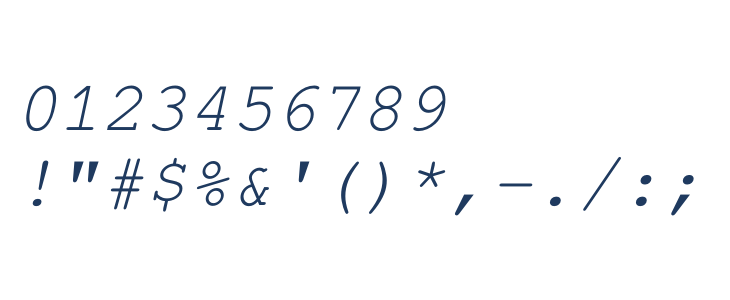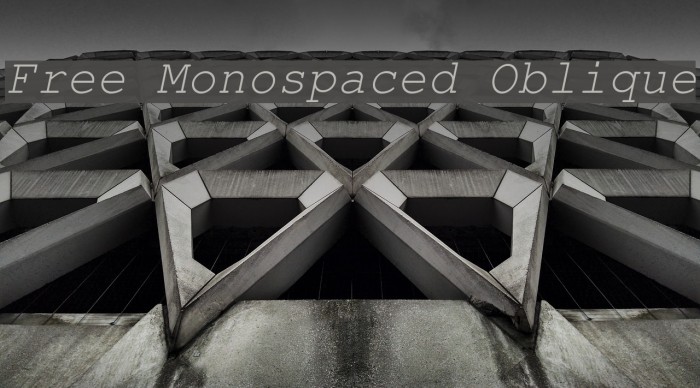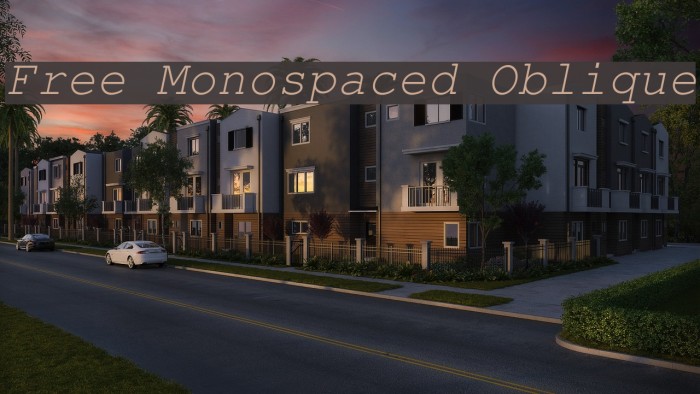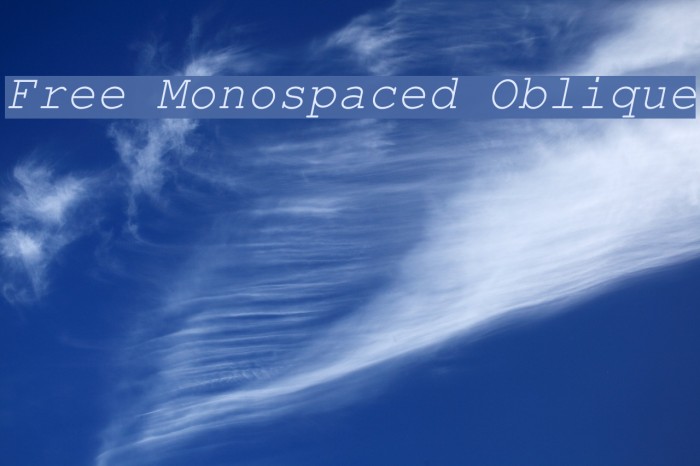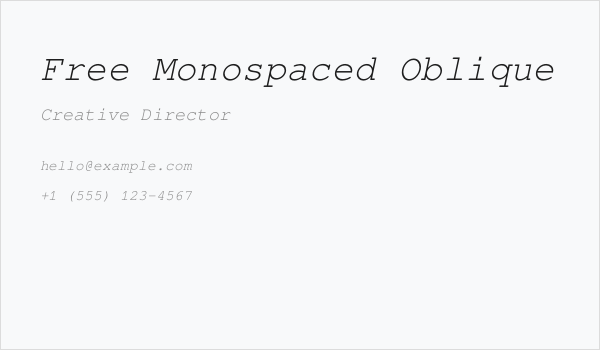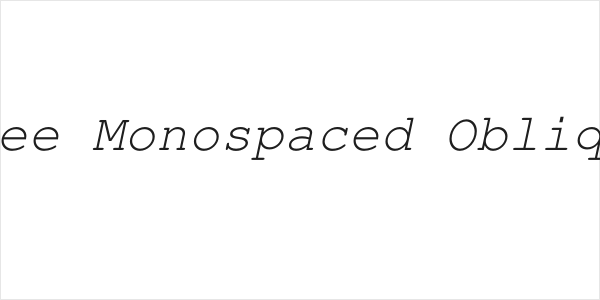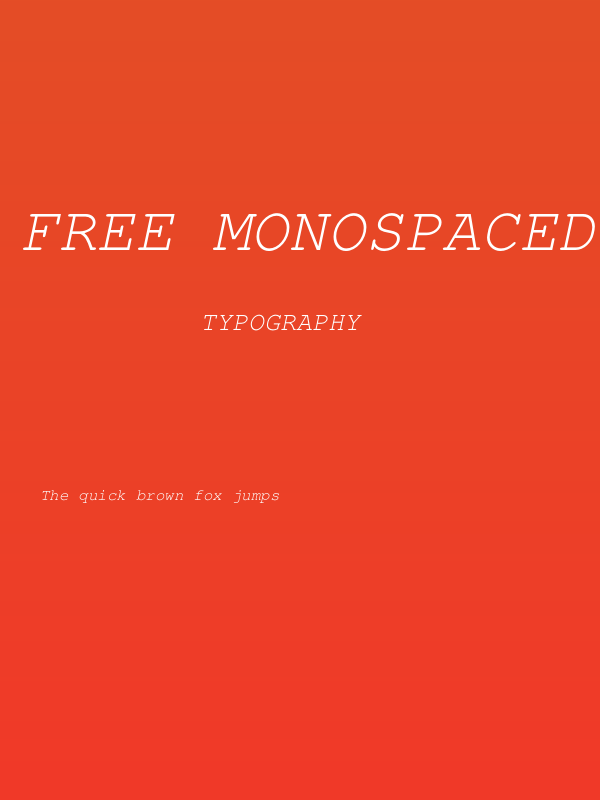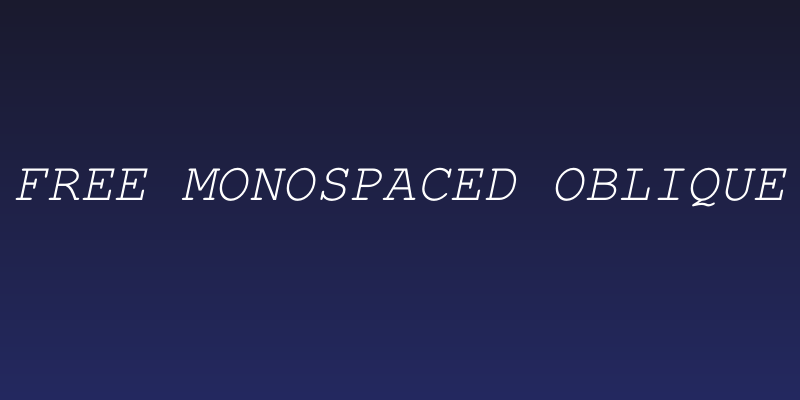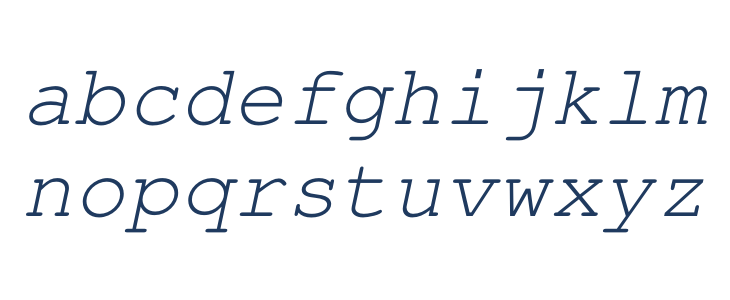
Free Monospaced Oblique Font
Free Monospaced Oblique Description
This font features a monospaced design with an oblique style, giving it a distinct slant that adds a dynamic and modern touch. Each character maintains equal width, ensuring consistent alignment and readability, which is ideal for coding and tabular data. The strokes are clean and uniform, providing a sleek and professional appearance. The oblique angle adds a sense of motion and elegance, making it suitable for both technical and creative applications. The font includes a full set of uppercase and lowercase letters, numbers, and a variety of special characters, offering versatility for different design needs.
| Use Case | Coding, Technical documents, Creative design |
| Proposed Projects | Ideal for coding environments, technical documents, and creative design projects requiring a modern touch. |